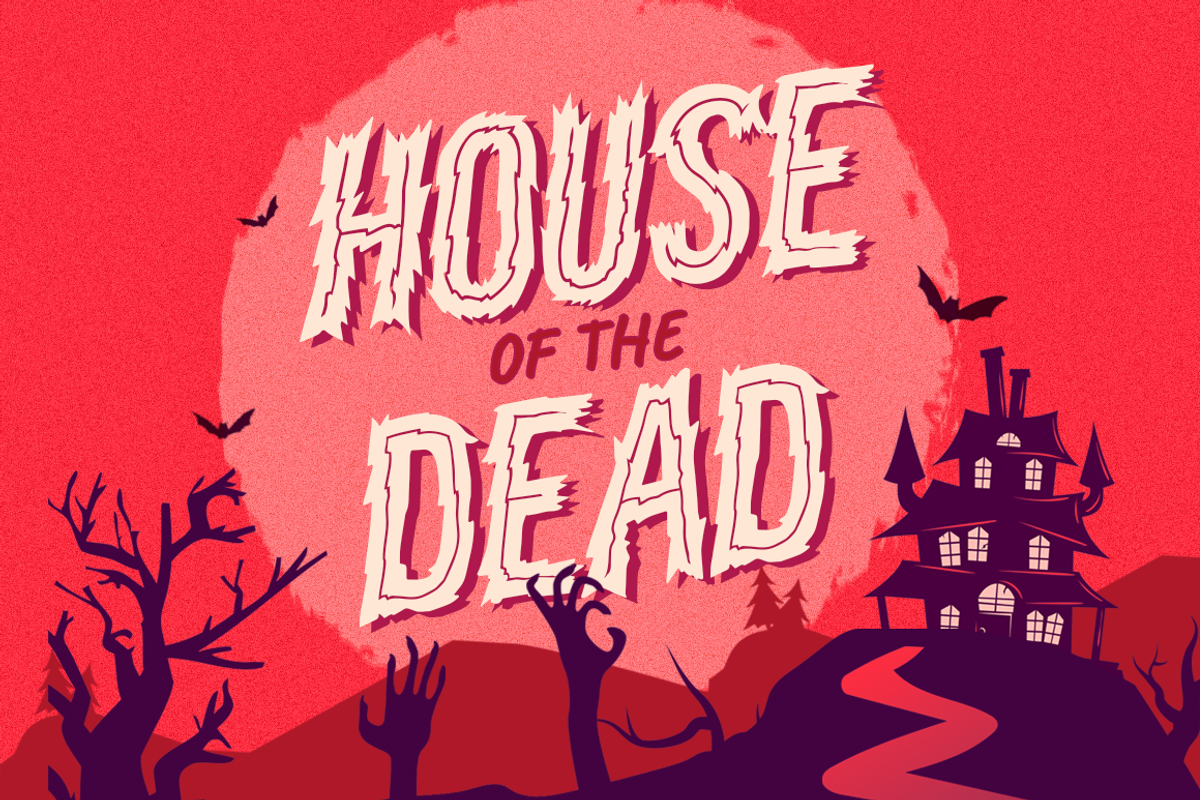
Horror Fonts | Crazy Monsters Free Download is a wild, chaotic, and delightfully creepy typeface perfect for all your spooky, silly, and monster-filled design needs. With exaggerated shapes, jagged edges, and a hand-drawn horror vibe, this font is ideal for Halloween party flyers, creepy kids’ content, haunted house branding, monster-themed merch, and spooky games.
Crazy Monsters strikes a balance between fun and fright—its quirky, cartoonish aesthetic makes it accessible for younger audiences while still delivering that eerie, haunted flair. It’s bold, eye-catching, and full of personality, ensuring your design grabs attention instantly.